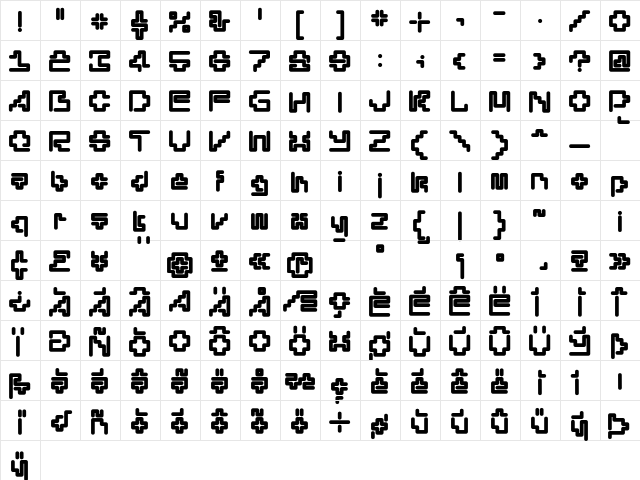
Complete Silesia Heavy glyph index. Displaying only characters natively supported by Silesia Heavy font.
Silesia is a composed and adaptable typeface that performs quietly and consistently across a wide range of design contexts.